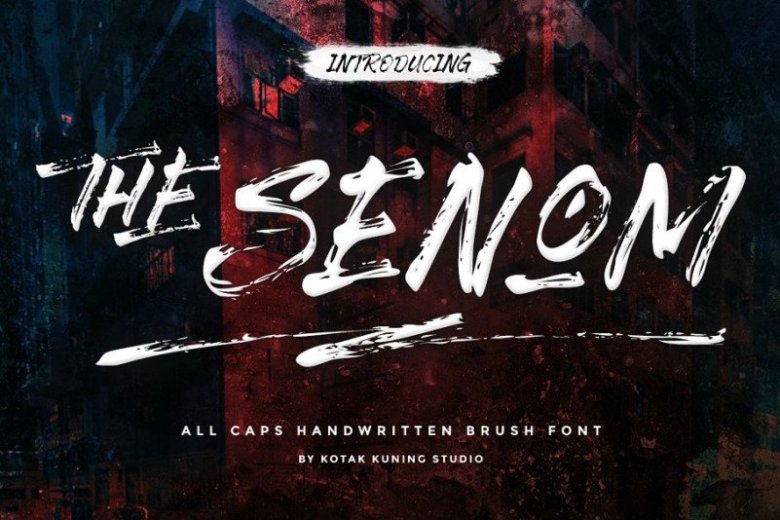
The Senom Brush Font
Hello Font Lovers! inspired by natural brush typography. This is a lively brush font intentionally crafted to give your designs new life. Introducing The Senom Brush Font. It’s design and shared by Kotak Kuning Studio. All caps hand-drawn font that was created with a dry brush which gives more personal touch and makes the font looks being customized.
This font is suitable to use as a logotype, product designs, label, watermark, social media posts, apparel, invitation, signboard, sports club, motor/car, special events or anything that need handwriting taste.